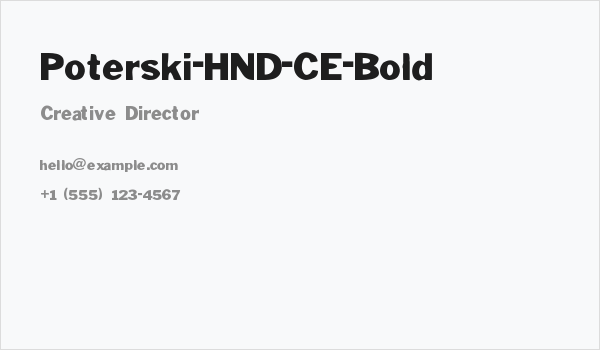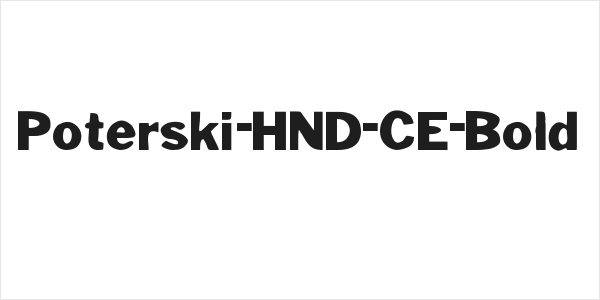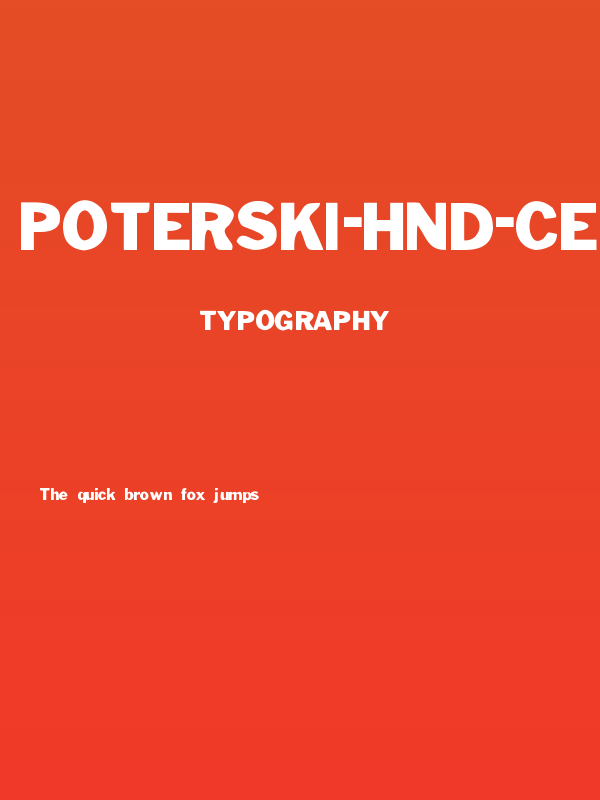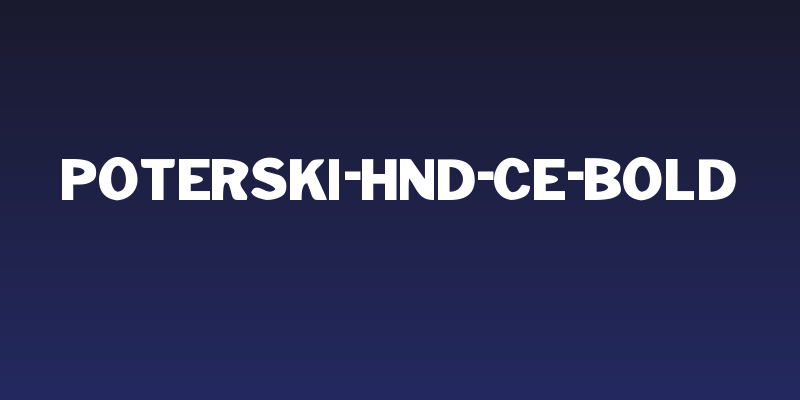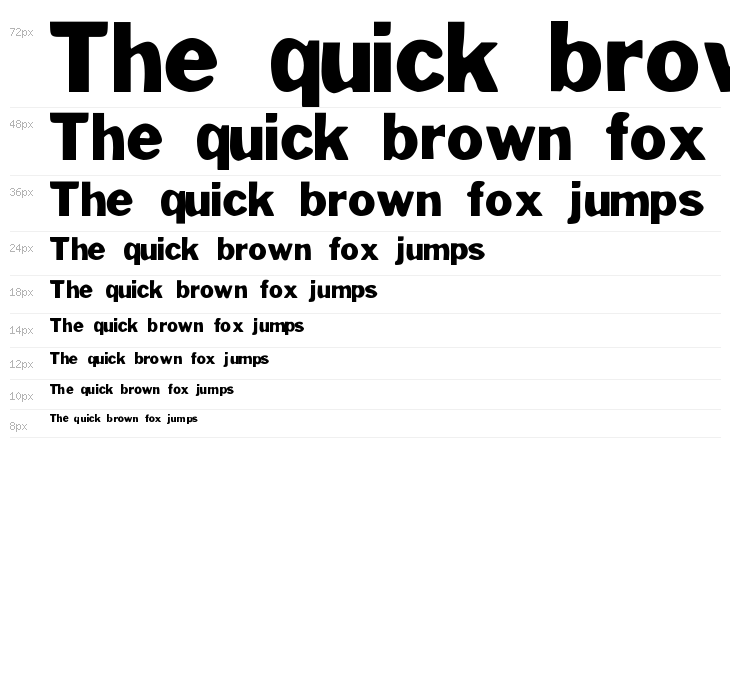
Poterski-HND-CE-Bold Font
Poterski-HND-CE-Bold Description
This font features bold, thick strokes with a strong presence, making it ideal for impactful designs. The uppercase letters are robust and commanding, while the lowercase letters maintain a consistent weight, ensuring readability. Numbers are equally bold, providing a cohesive look across all characters. The special characters are well-defined, adding versatility to the font's usage. Its overall appearance is modern and assertive, suitable for projects that require a strong visual statement.
| Proposed Projects | Ideal for headlines, posters, branding, and advertising where a bold statement is needed. |